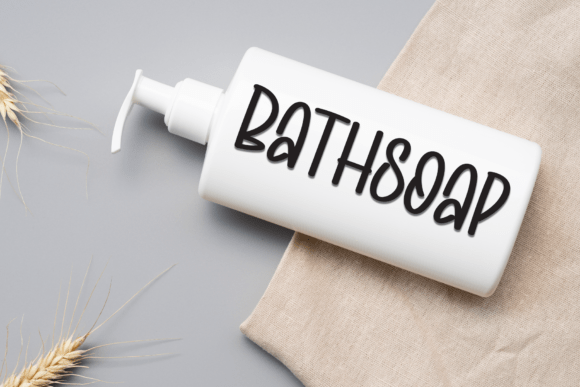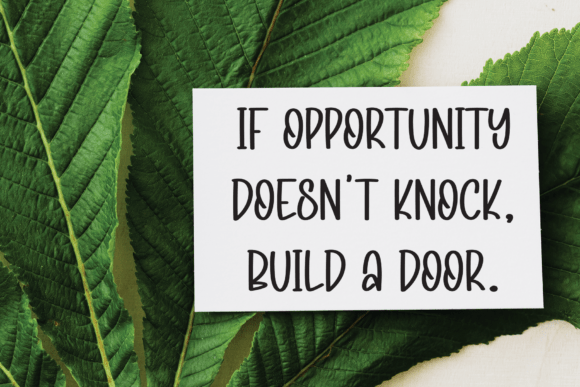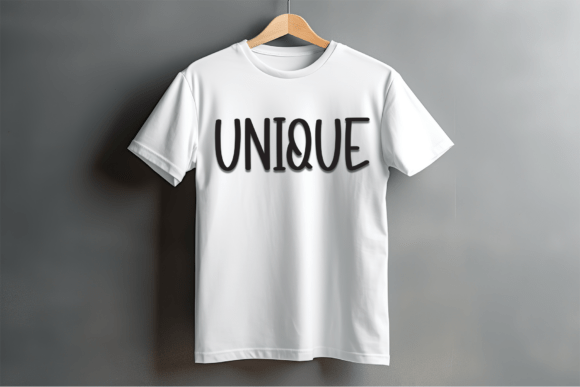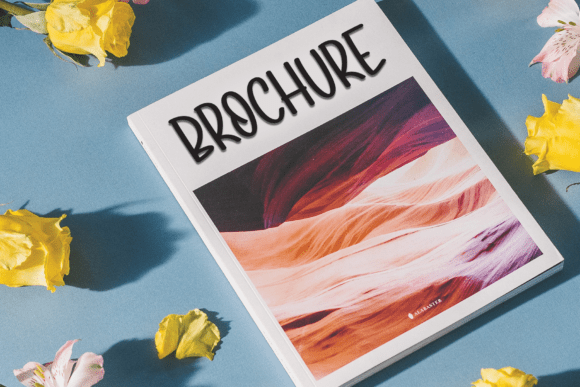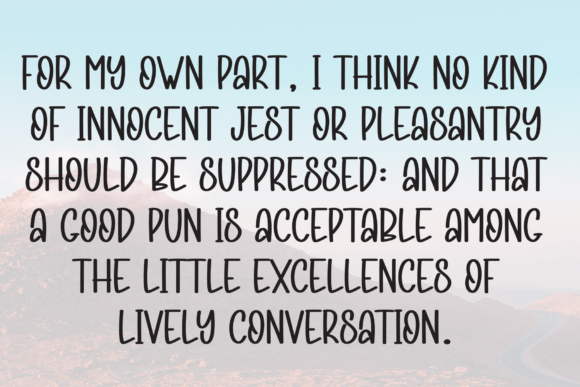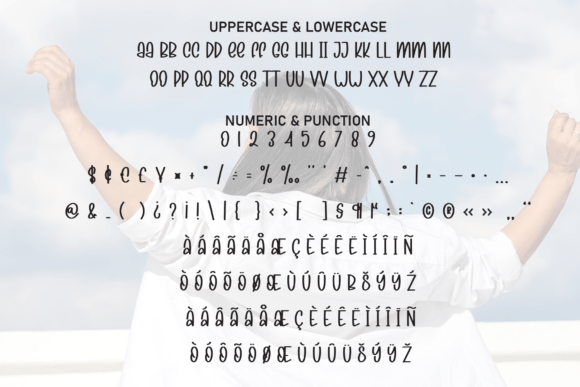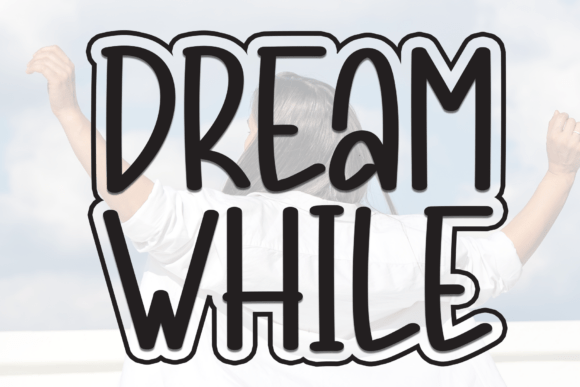
Dream While Font: Elevate Your Designs with a Casual and Neat Display Font
In the world of design, fonts play a crucial role in conveying messages and setting the tone for a brand or project. With the numerous font options available, finding the perfect one that balances style and readability can be a daunting task. However, if you’re looking for a font that exudes warmth, clarity, and approachability, look no further than the Dream While font. In this article, we’ll dive into the features and benefits of this beautiful display font and explore how it can elevate your designs.
What is Dream While Font?
Dream While font is a carefully crafted display font designed to bring a touch of warmth and clarity to your projects. Its clean structure and neat appearance make it an excellent choice for a wide range of design applications, from branding and headlines to everyday designs. The font’s balanced letterforms offer exceptional readability and charm, making every message feel genuine and inviting.
Key Features of Dream While Font
- Clean Structure: The Dream While font boasts a clean and organized structure that ensures clarity and legibility, even at smaller font sizes.
- Approachable Style: The font’s friendly and approachable style makes it perfect for designs that require a personal touch.
- Balanced Letterforms: The carefully balanced letterforms provide excellent readability and add a touch of charm to your text.
- Versatility: The Dream While font is suitable for a wide range of design applications, including branding, headlines, posters, and more.
Benefits of Using Dream While Font
So, why choose the Dream While font for your next project? Here are just a few benefits of using this beautiful display font:
- Enhanced Readability: The font’s clean structure and balanced letterforms ensure that your text is easy to read and understand.
- Emotional Connection: The approachable style and charming letterforms of the Dream While font help create an emotional connection with your audience.
- Professional Look: The font’s neat appearance and clean lines give your designs a professional and polished look.
- Time-Saving: With its versatility and wide range of uses, the Dream While font can save you time and effort in finding the perfect font for your project.
Who Can Benefit from Dream While Font?
The Dream While font is an excellent choice for a variety of designers and crafters, including:
- Graphic Designers: The font’s clean structure and approachable style make it perfect for branding, logos, and marketing materials.
- Web Designers: The font’s readability and charm make it an excellent choice for web designs, including headings, titles, and body text.
- Crafters: The font’s versatility and wide range of uses make it suitable for various craft projects, such as papercraft, card making, and scrapbooking.
Tips for Using Dream While Font
To get the most out of the Dream While font, here are a few tips to keep in mind:
- Pair with Other Fonts: Experiment with pairing the Dream While font with other fonts to create a unique and visually appealing design.
- Adjust Font Size: Adjust the font size to suit your design needs, ensuring that the text is clear and readable.
- Use in Headlines: Use the Dream While font in headlines and titles to add a touch of warmth and charm to your design.